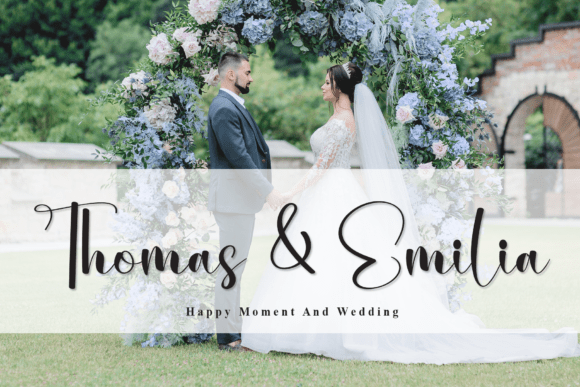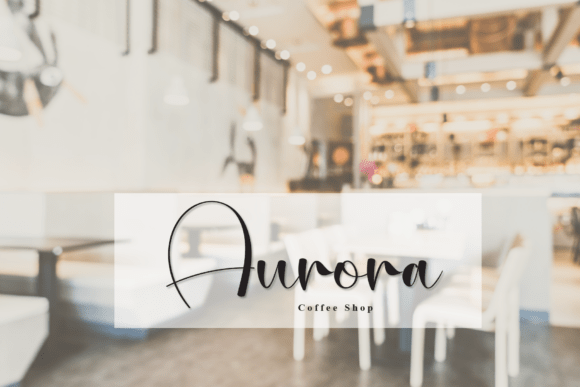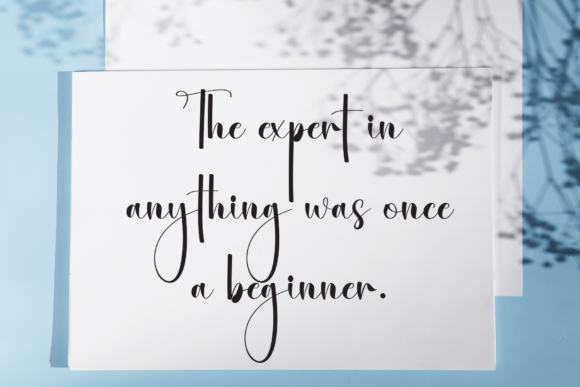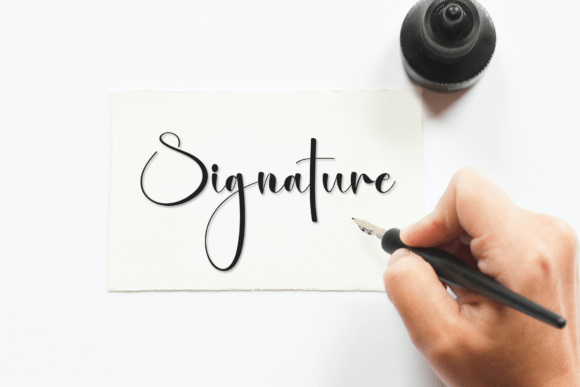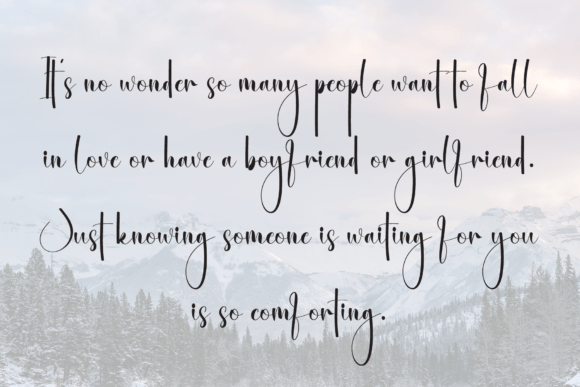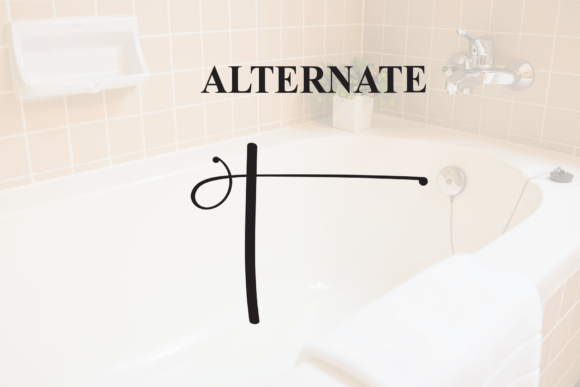
Bathine Font: Elevate Your Design with Luxury and Elegance
In the world of typography, few fonts manage to strike a balance between tradition and modernity as effortlessly as the Bathine font. This stunning luxury script combines the best of traditional calligraphy with a modern, high-contrast aesthetic, making it a go-to choice for designers and crafters looking to add a touch of elegance and sophistication to their projects.
The Characteristics of Bathine Font
The Bathine typeface is characterized by its bold downstrokes and thin, elegant connectors. This unique combination gives the font its distinctive look, which is both eye-catching and refined. When you use the Bathine font, you’re choosing a typeface that commands attention while maintaining a sense of grace and fluidity. The bold downstrokes provide a sense of strength and stability, while the thin connectors add a touch of delicacy and finesse.
Ideal Applications for Bathine Font
The Bathine font is particularly effective for large-scale applications like signage, window decals, and editorial headlines. Its dramatic flourishes can be used to anchor your design, providing a focal point that is both decorative and functional. Whether you’re designing a wedding invitation, a luxury brand logo, or a high-end product package, the Bathine font is sure to make a lasting impression.
Design Tips for Using Bathine Font
To get the most out of the Bathine font, consider pairing it with muted color palettes and gold textures to enhance its opulent feel. This luxury font is perfect for beauty brands, spa packaging, and upscale event planners, as it ensures that your message is delivered with maximum elegance and style. When using the Bathine font, keep the following design tips in mind:
- Use the Bathine font as a headline or title font to draw attention to your design.
- Pair the Bathine font with a simpler font for body text to create contrast and visual interest.
- Experiment with different color palettes and textures to find the perfect combination for your design.
- Don’t be afraid to get creative with the Bathine font’s dramatic flourishes and swashes.
Who Can Benefit from Using Bathine Font?
The Bathine font is perfect for a variety of designers and crafters, including:
- Wedding planners and stationery designers looking for a luxurious and elegant font for invitations and wedding decor.
- Beauty brands and spa owners seeking to create a high-end brand image.
- Upscale event planners and luxury product designers looking for a font that exudes elegance and sophistication.
- Graphic designers and typographers looking to add a touch of luxury and refinement to their designs.
In conclusion, the Bathine font is a stunning luxury script that combines traditional calligraphy with a modern, high-contrast aesthetic. Its bold downstrokes, thin connectors, and dramatic flourishes make it a primary choice for designers and crafters looking to add a touch of elegance and sophistication to their projects. Whether you’re designing a wedding invitation, a luxury brand logo, or a high-end product package, the Bathine font is sure to make a lasting impression.